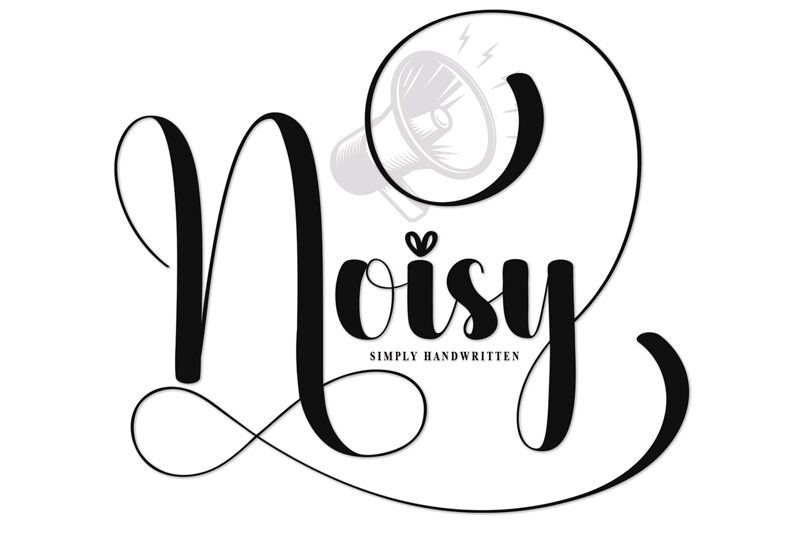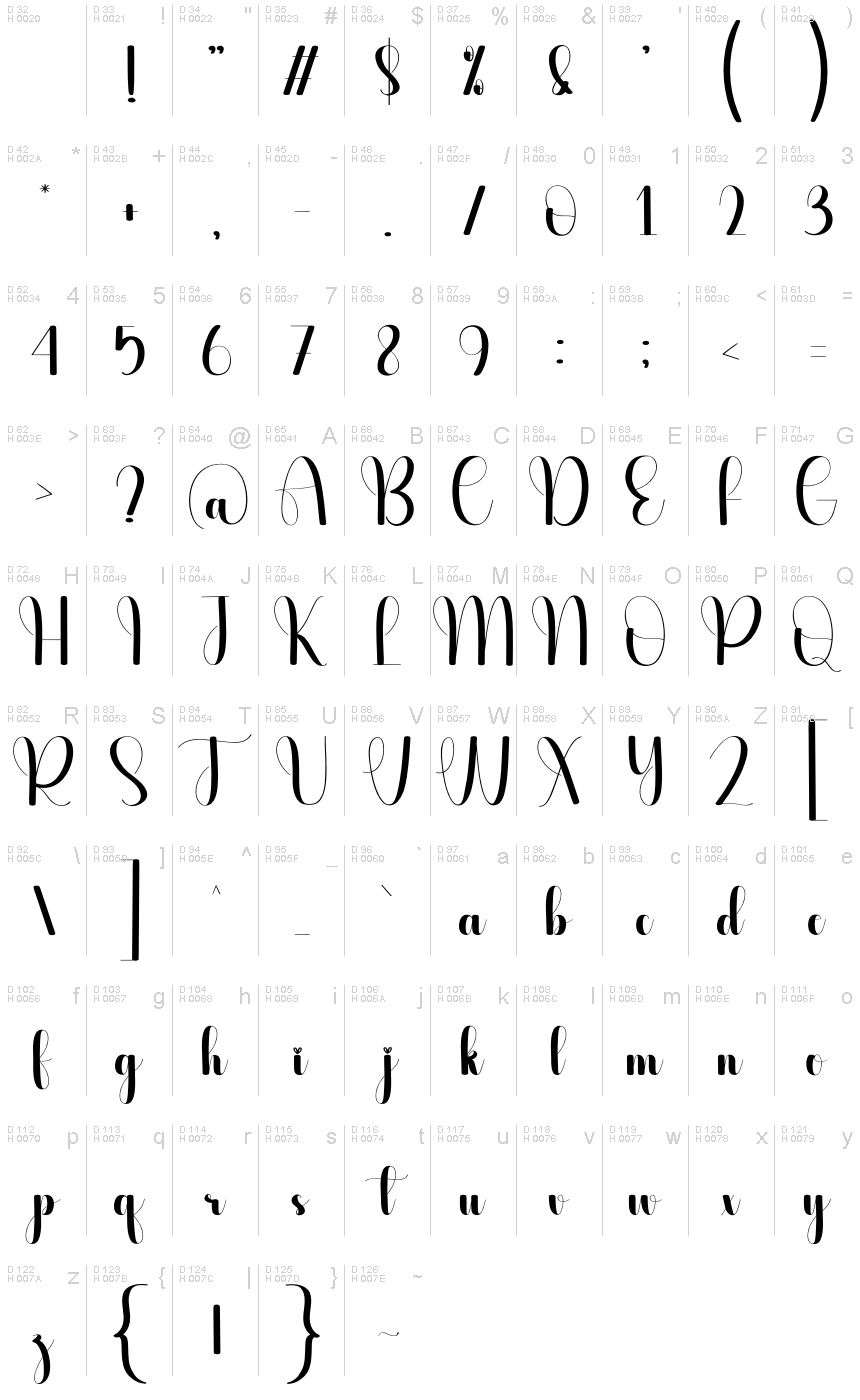
Noisy
Noisy font by Scratchones captivates with its elegant calligraphy style, combining intricate loops and fluid strokes to create a lively and expressive appearance. This free font radiates sophistication, making it perfect for enhancing projects that require an artistic flair. The expanded flourishes lend an airy, graceful presence suitable for branding, invitations, or editorial designs.
Whether crafting upscale wedding stationery or creating visually striking logos, Noisy font elevates any project with its distinct calligraphic artistry.